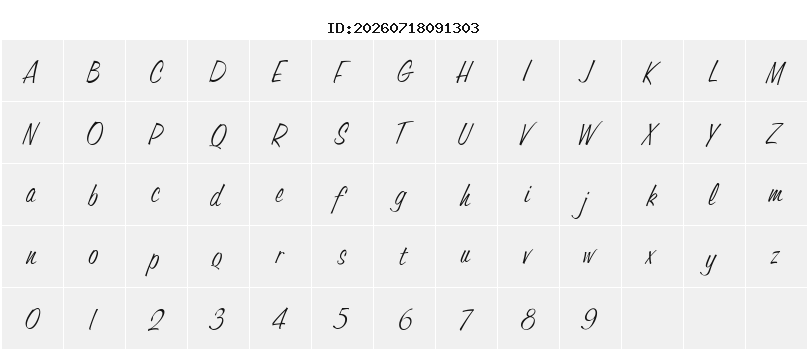
• Font Name: CgTrophyOblique
• Full Font Name: CgTrophyOblique
• PostScript Name: CgTrophyOblique
About CgTrophyOblique.ttf
CgTrophyOblique.ttf is a modern, elegant sans-serif font designed for ultimate readability and visual harmony. Perfect for branding, headlines, web design, and print materials.